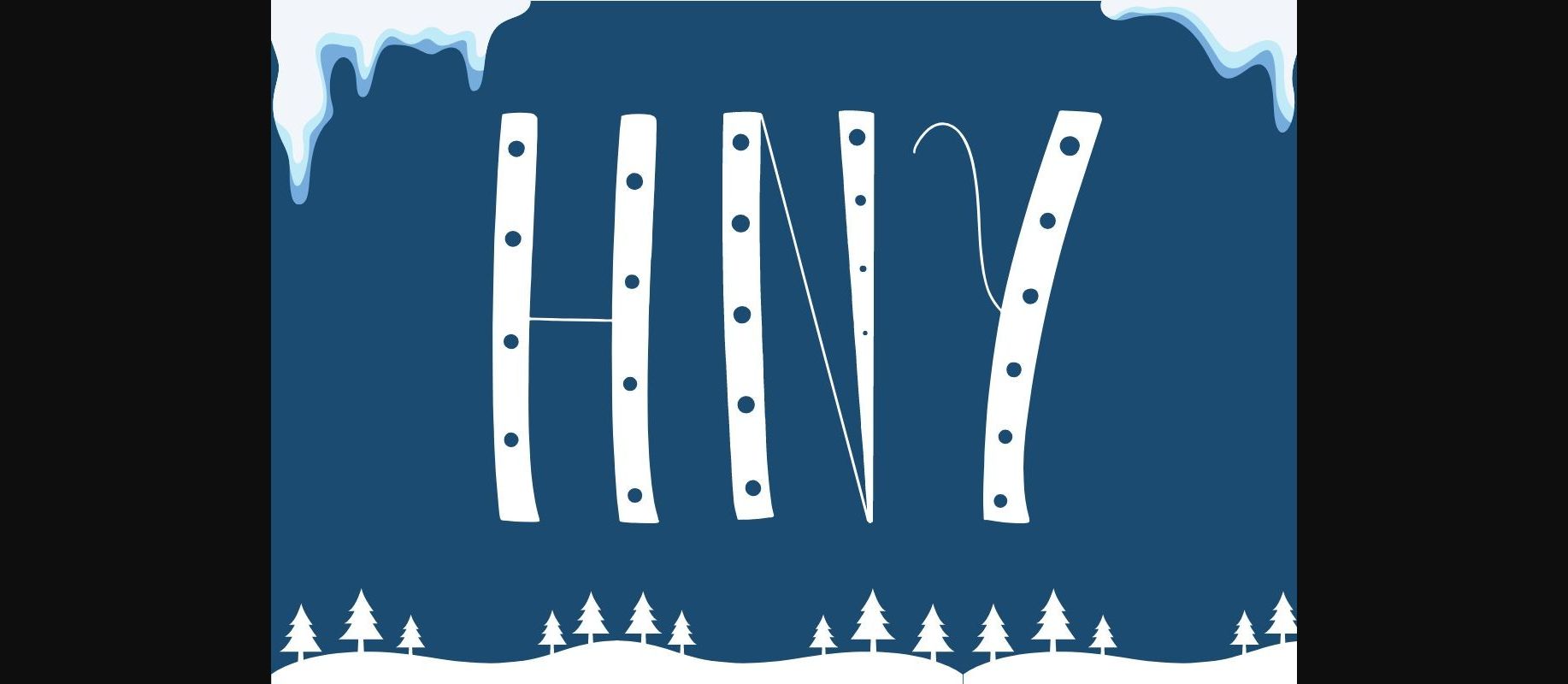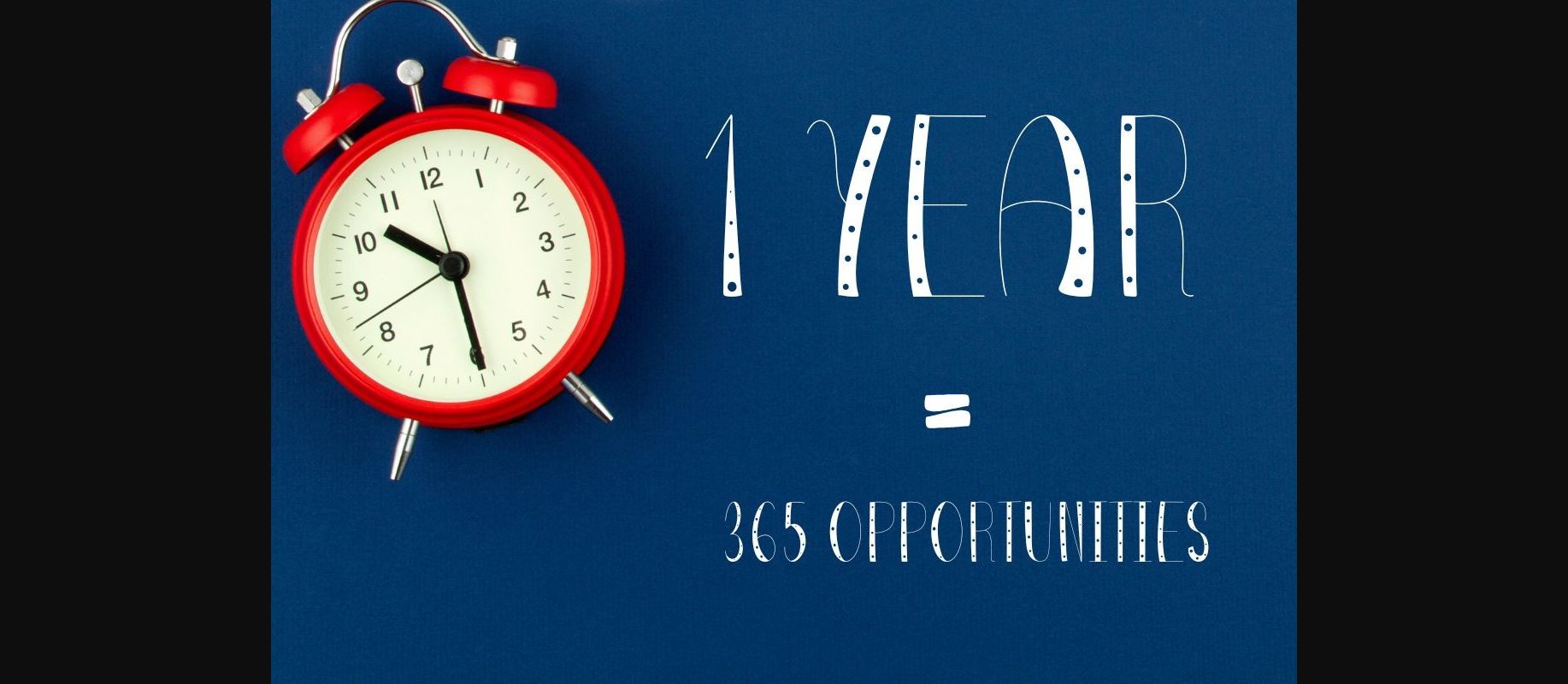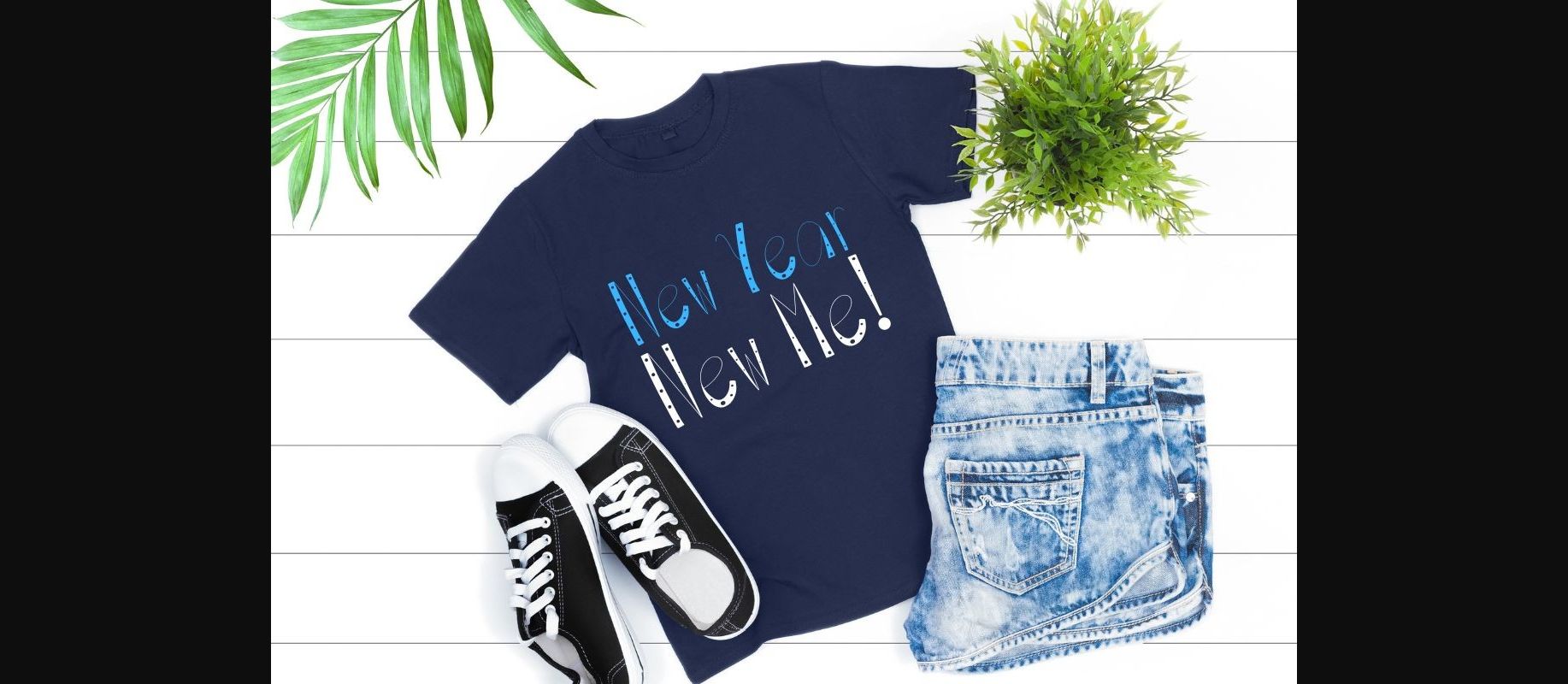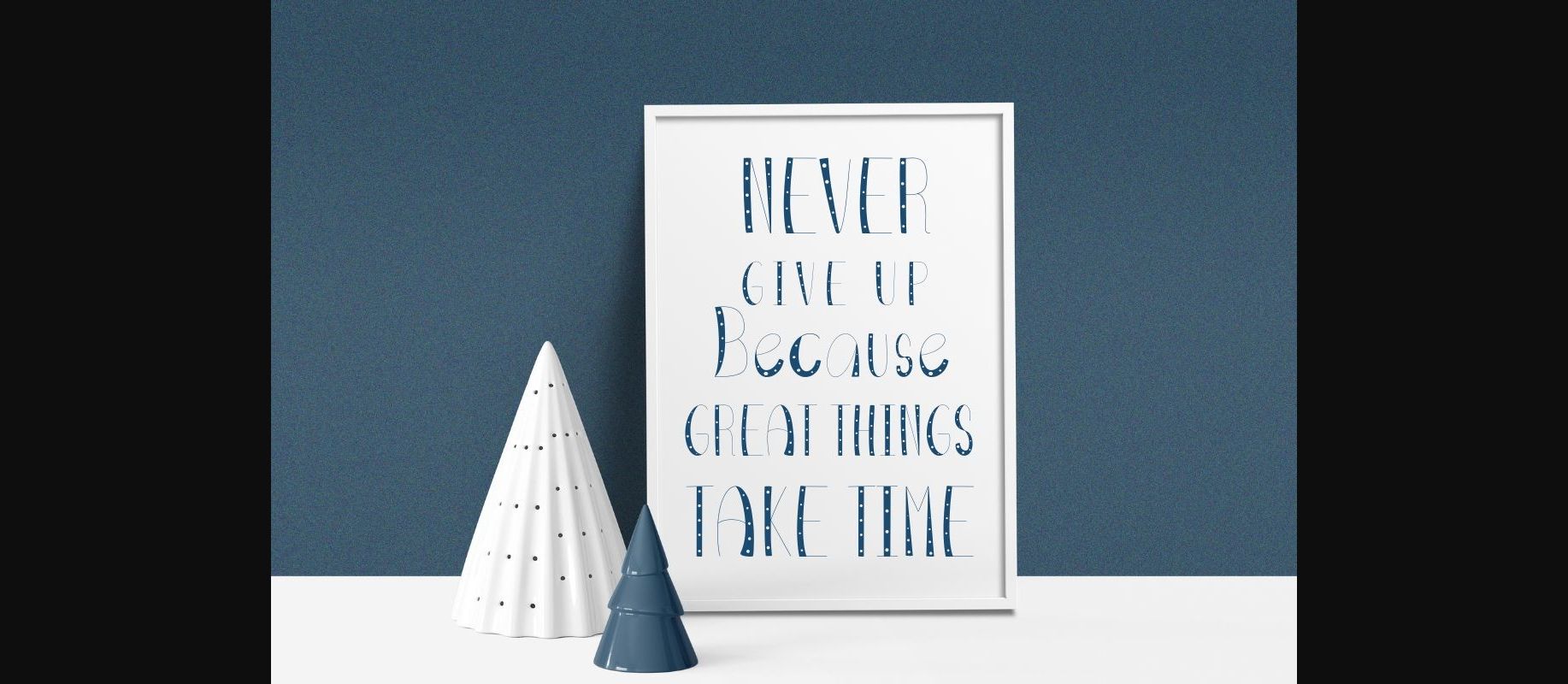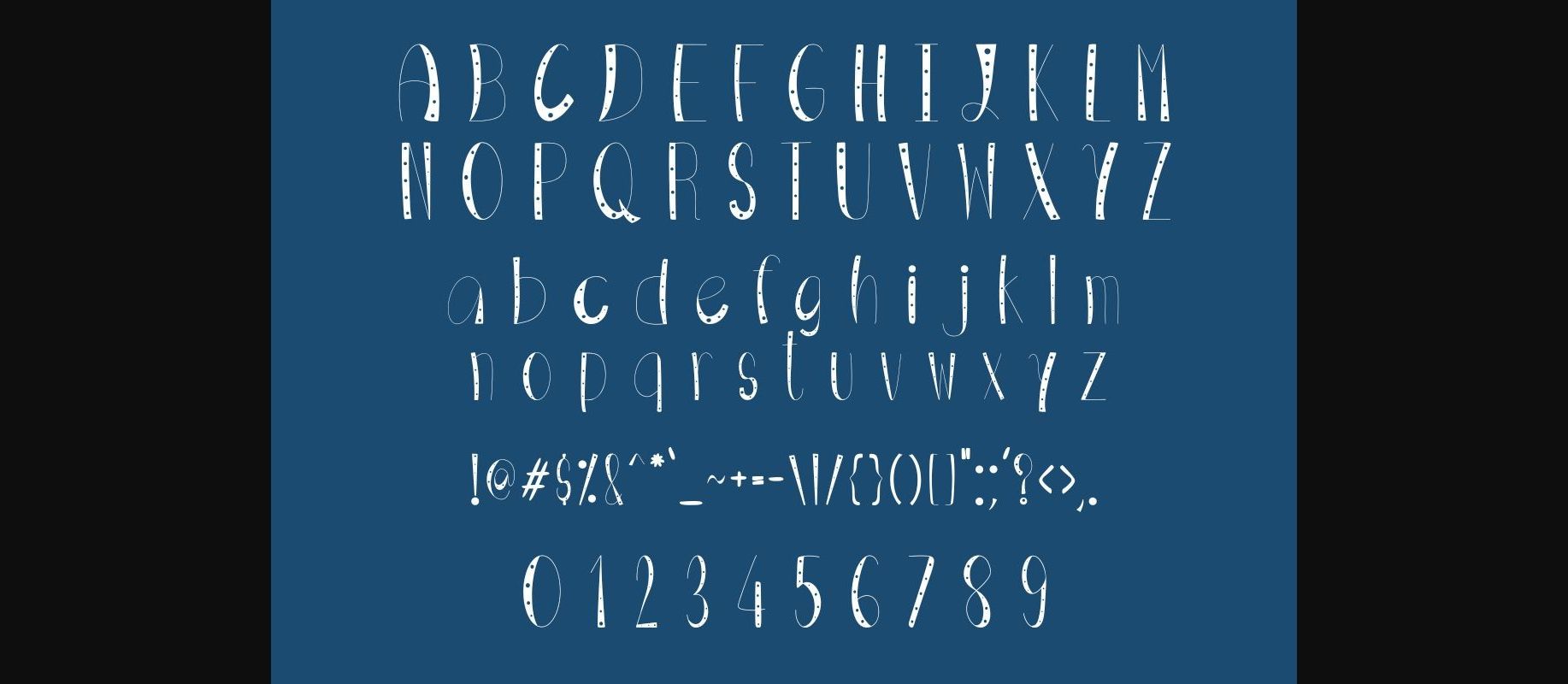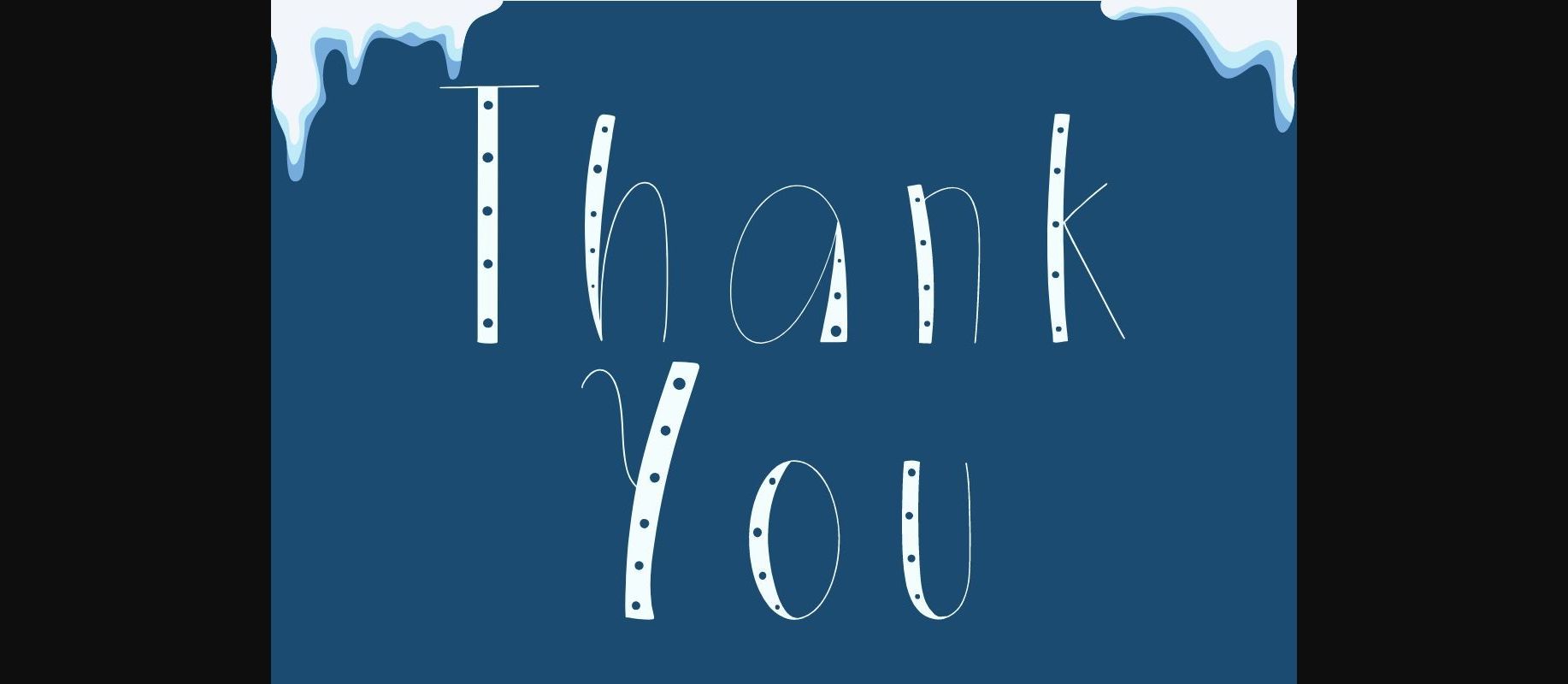
Hny Font
About Hny Font
HNY is a fun and fresh decorative font. This font was particularly crafted for those who need a beautiful and friendly look to their designs.